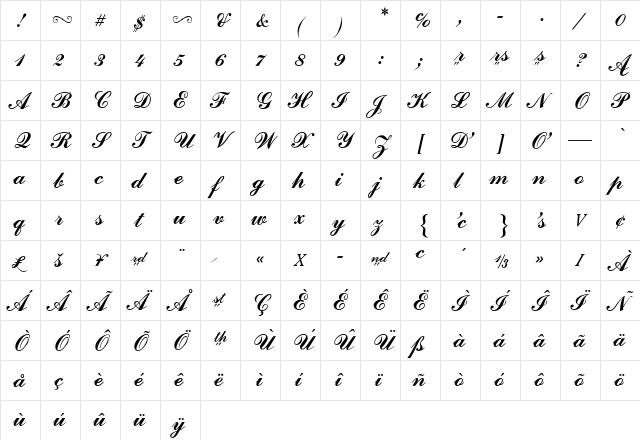
ATCommercialScript Regular
Design Context for ATCommercialScript Typeface
ATCommercialScript flows with the natural rhythm of handwritten lettering, making it ideal for designs that call for warmth and personal expression.
Font Pairing: Combine ATCommercialScript with a simple geometric sans for maximum contrast — the tension between flowing curves and clean structure is a classic typographic pairing.
Pro Tip: Pair ATCommercialScript with a clean sans-serif for supporting text. The contrast between fluid script and geometric structure creates an elegant typographic hierarchy.